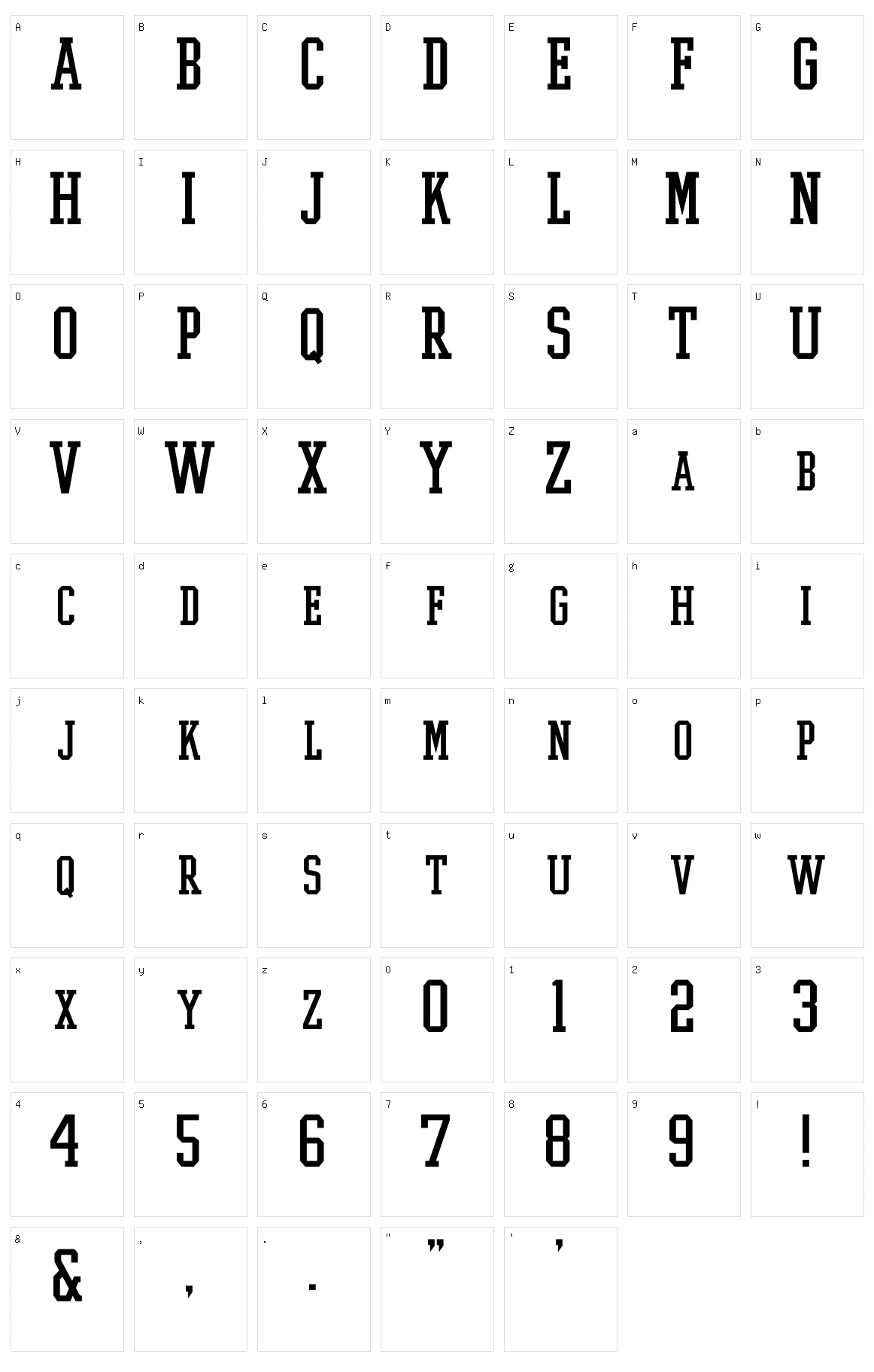
The free font College Boy is carefully designed by Mickey Rossi, showcasing a thoughtful balance of creativity and usability and falls under the Old School font style. When you download the ZIP file, it contains only 4.23 KB of font files, making it lightweight and quick to download. Please review the license details below to understand permitted usage and distribution rights. If license information is not available, we recommend using this font for personal projects only or contacting the author directly for commercial usage permissions.